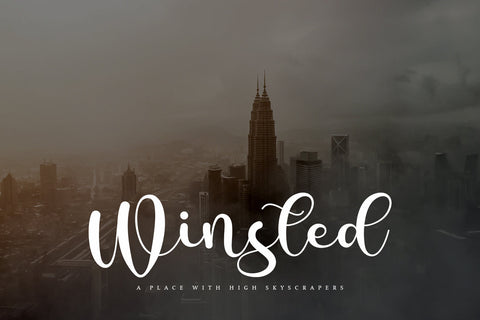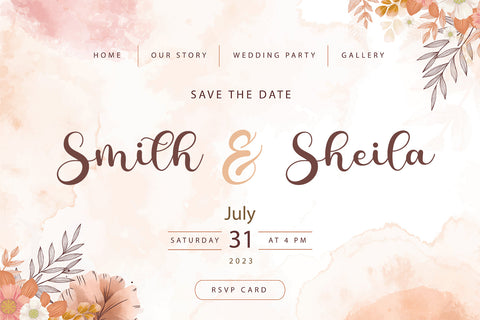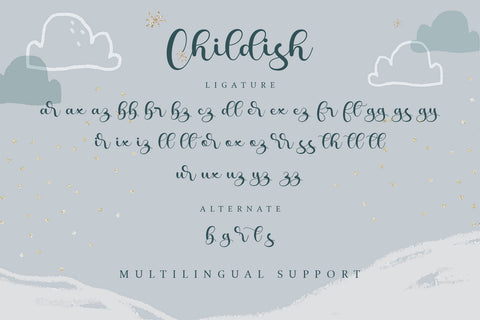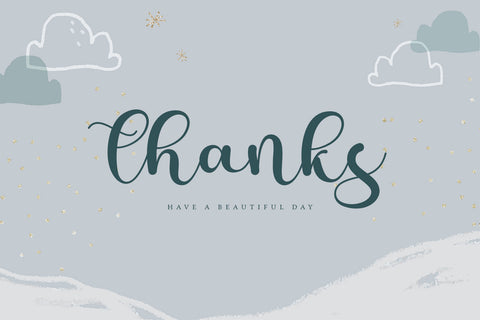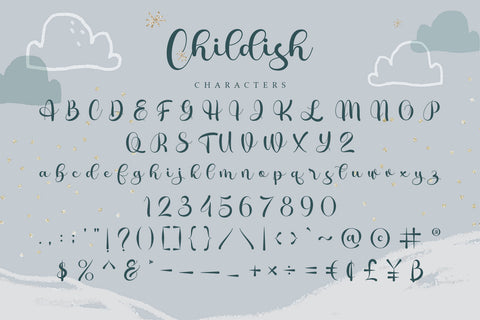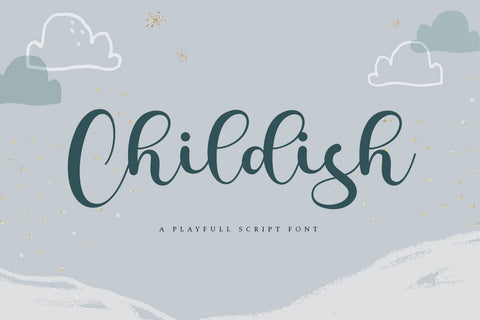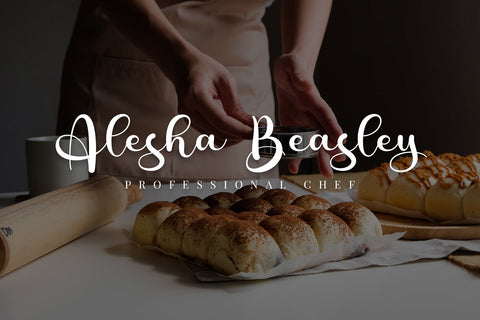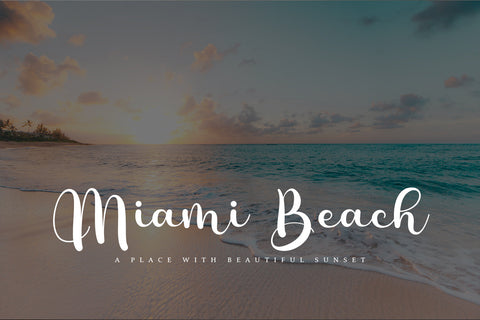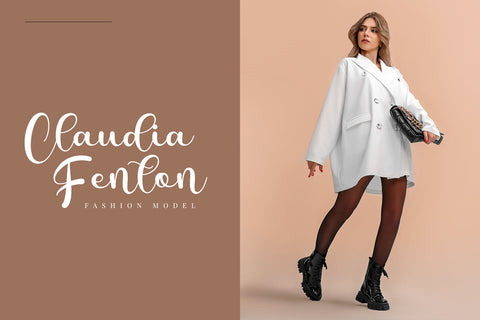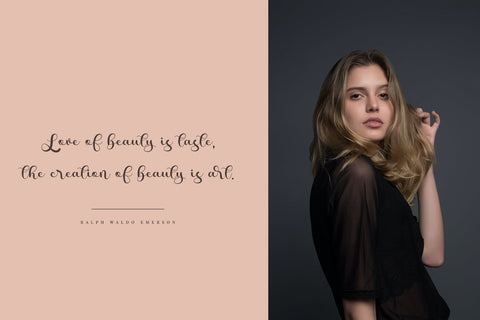
Childish - Playful Script Font
Childish is a playful script font with authentic and playful feels. It will be perfectly used for Branding, Logo Design, Lettering, Logotype, Clothing, Poster, magazine, packaging, posters, shopping bags, t-shirts, book covers, photography, special events and other design project.